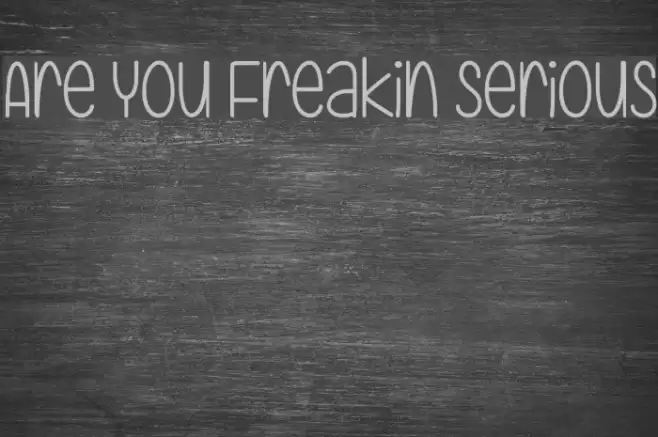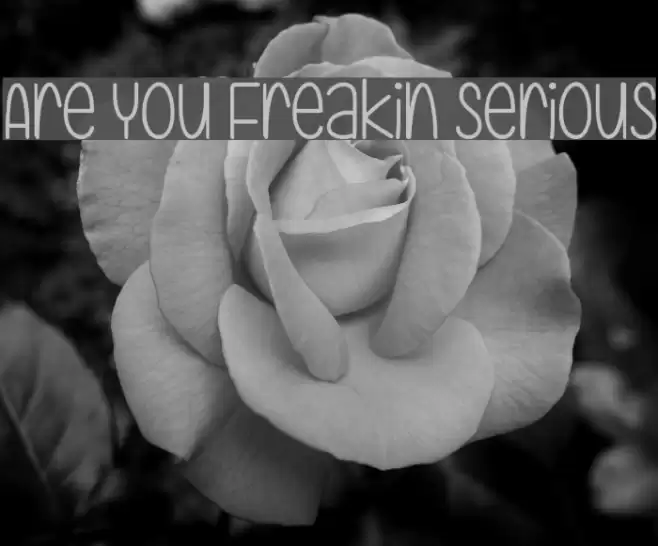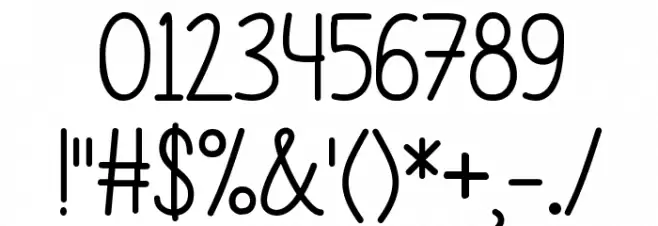
Are You Freakin Serious Font
Are You Freakin Serious Description
This playful and whimsical font features rounded, hand-drawn characters that exude a casual and friendly vibe. The letters are slightly elongated with a consistent stroke width, giving them a uniform appearance while maintaining a sense of individuality. The font's informal style makes it ideal for projects that require a touch of personality and creativity. It includes a full set of uppercase and lowercase letters, numbers, and a variety of special characters, ensuring versatility in design applications.
A playful, hand-drawn font with rounded, elongated characters from Uncategorized fonts.
- Proposed Projects: Ideal for children's books, greeting cards, playful branding, and social media graphics.
- Overall Style: Casual
- Use Case: Headlines, Informal text, Creative projects